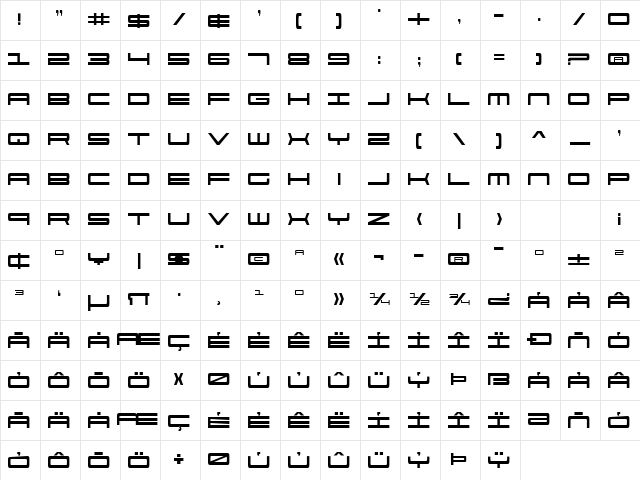
911 Porscha Regular Free Font
911 Porscha Regular
911 Porscha Family
Complete 911 Porscha Regular glyph index. Displaying only characters natively supported by 911 Porscha Regular font.
Design Context for 911 Porscha
911 Porscha is a composed and adaptable typeface that performs quietly and consistently across a wide range of design contexts.